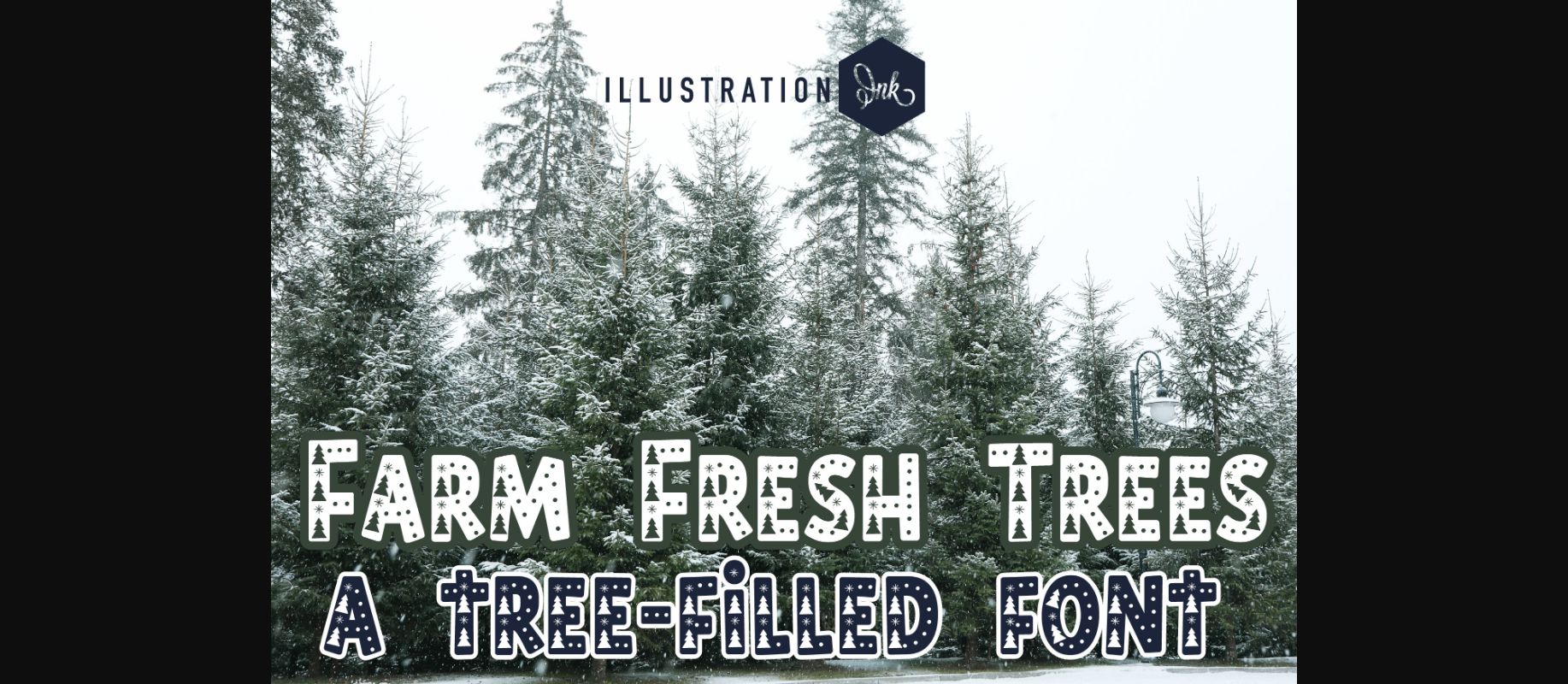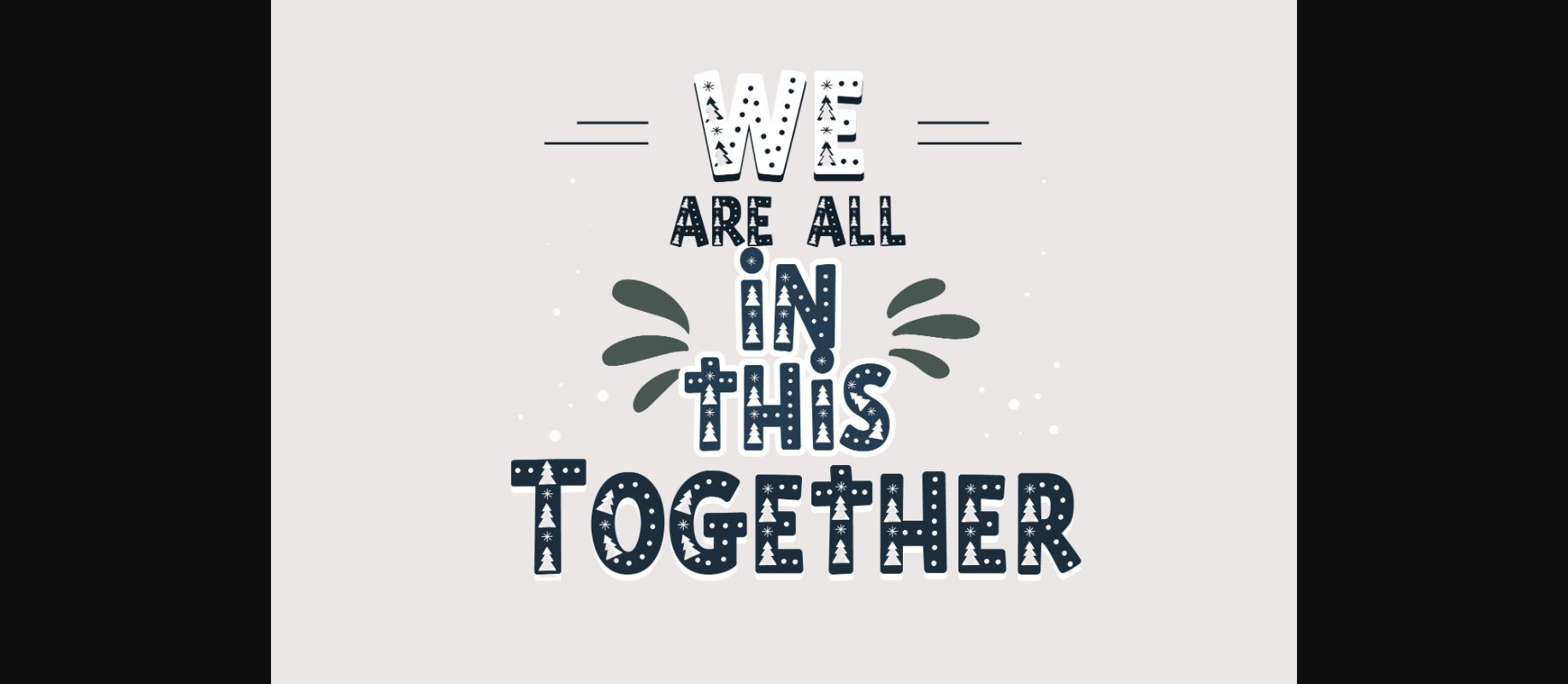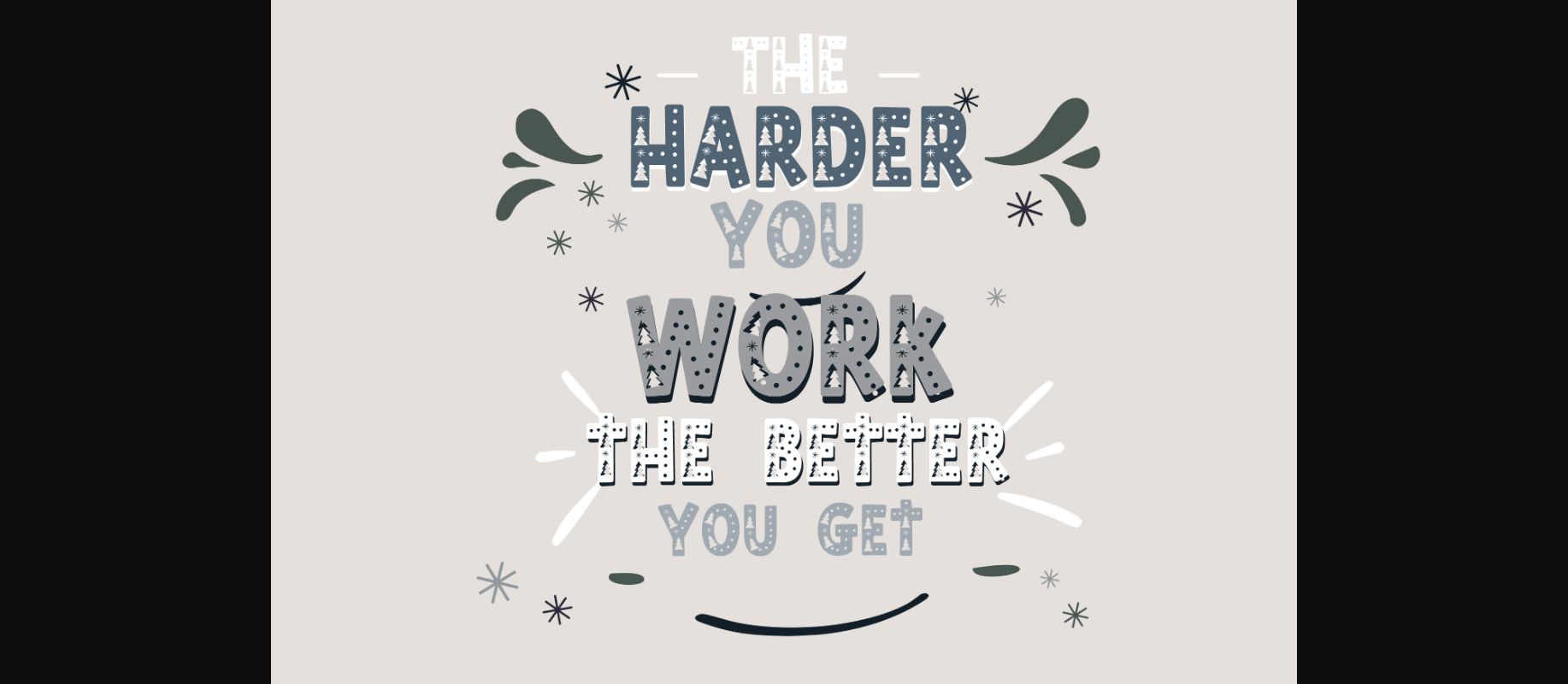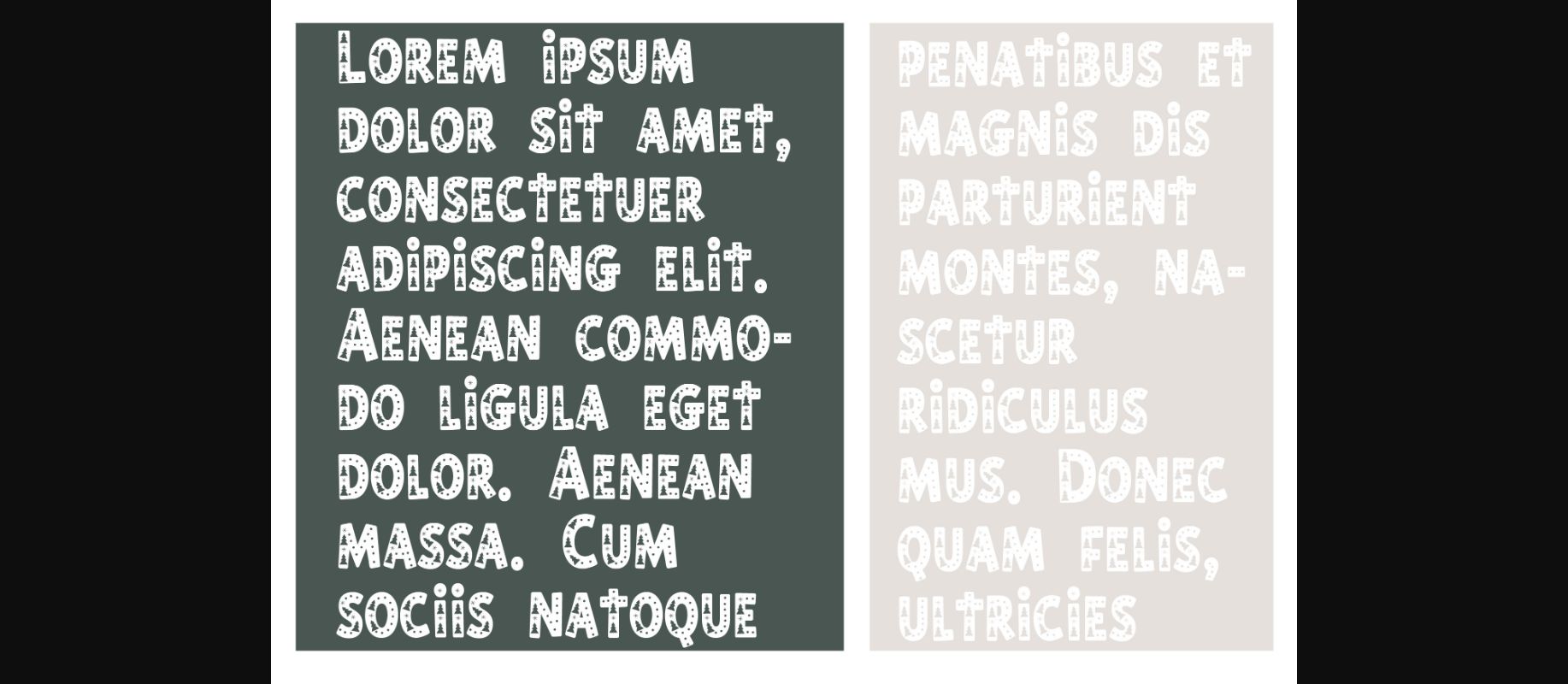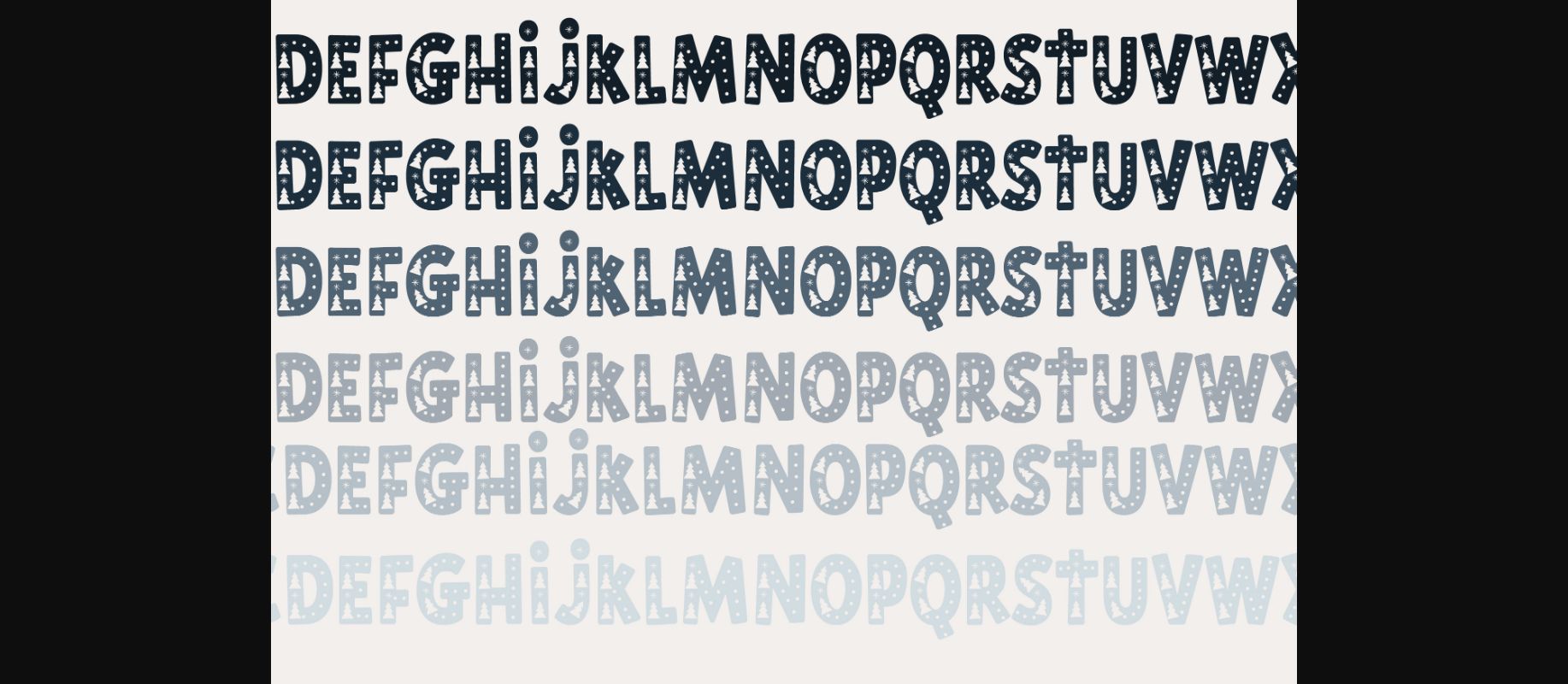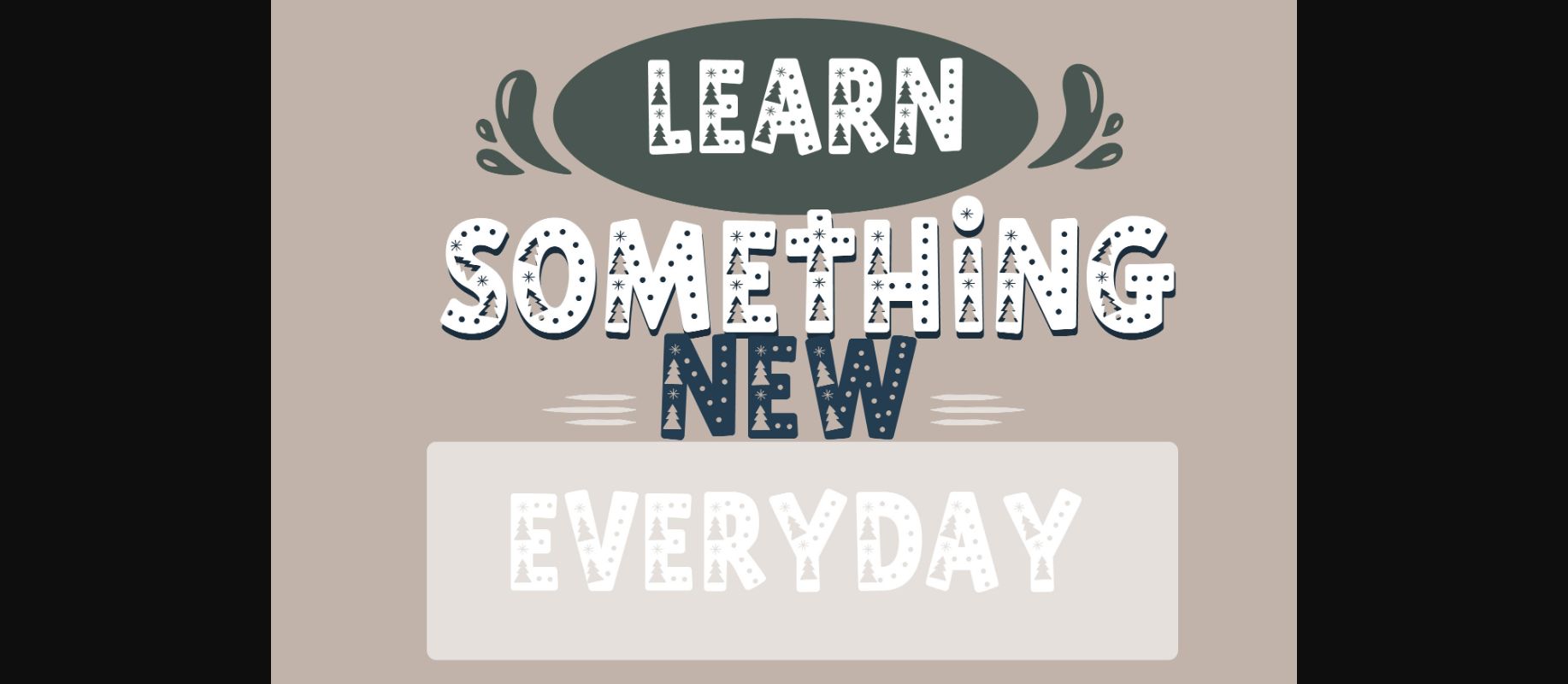
Farm Fresh Trees Font
About Farm Fresh Trees Font
Farm Fresh Trees is a cute decorative font that features trees and snow. Add it confidently to your projects and you will be amazed by the generated outcome!